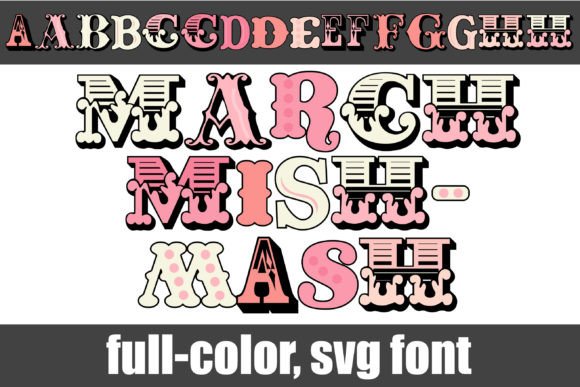
Dive into Mishmash Mom Font, an artistic concoction of pink-themed styles, designed to make your SVG projects pop like never before. Created by the creative minds at Illustration Ink, this vibrant font family is not just a collection of letters; it's an explosion of colors and styles. Behind each capital letter hides a hidden gem – a gorgeously swirled version in a contrasting hue, ready to be unleashed through Silhouette's glyph map. Feel the creative power surge as you weave your design magic with this remarkable font.
Versatile and bursting with possibilities, Mishmash Mom Font isn't just another font; it's an artistic playground where your imagination runs wild. Whether you're designing stunning logos, eye-catching invitations, or playful social media graphics, this multitalented font is your perfect partner. Its pink palette radiates warmth and femininity, adding a touch of charm to every project.
The full-color SVG format elevates this font to a new level of design excellence. Create designs that come alive on screen, brimming with vibrant hues and impeccable sharpness. Say goodbye to pixelated fonts and hello to pristine clarity and stunning detail. Your designs deserve nothing less than the brilliance of Mishmash Mom Font.